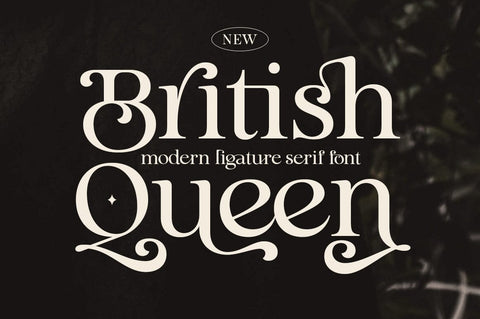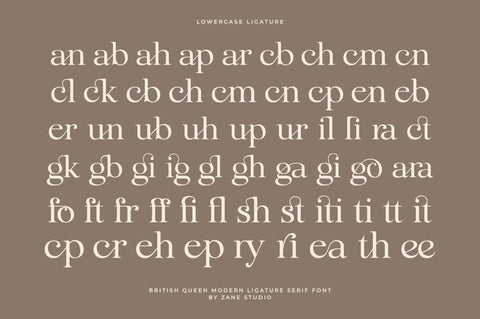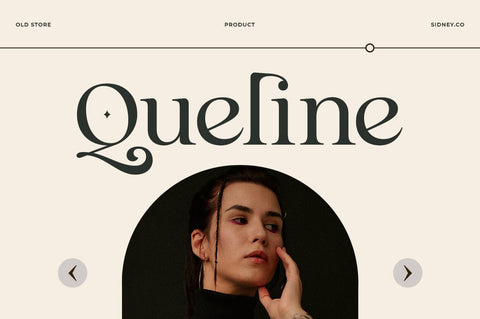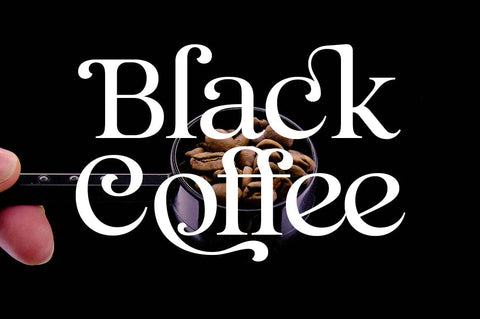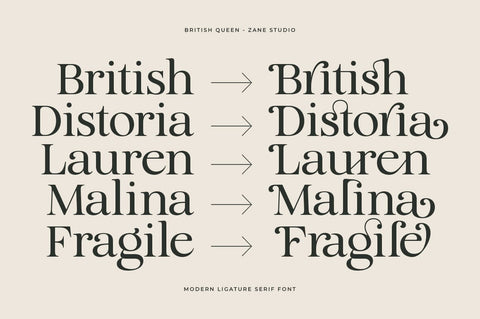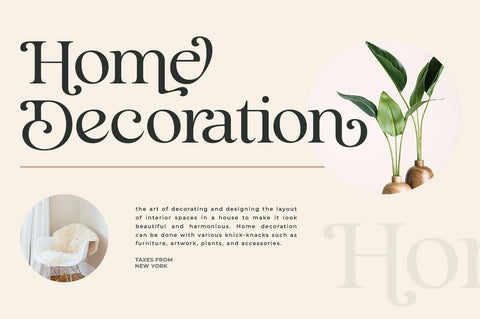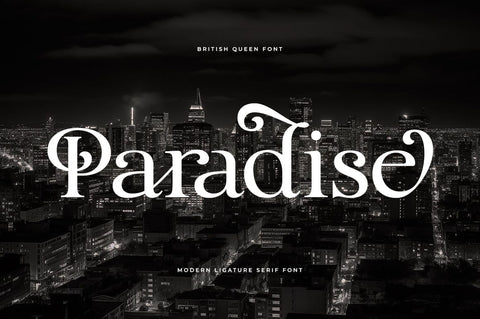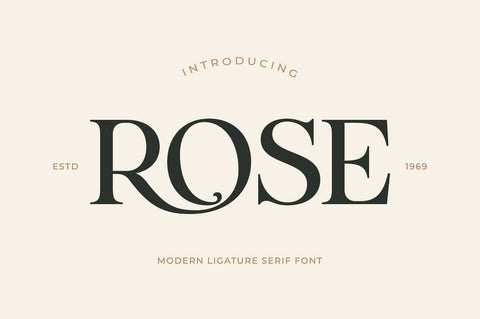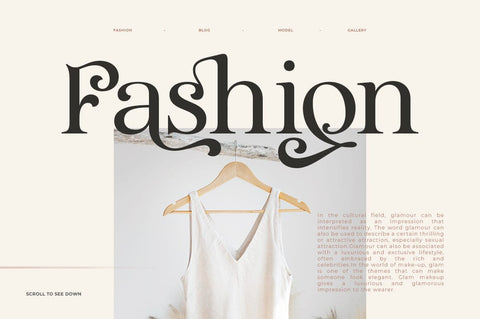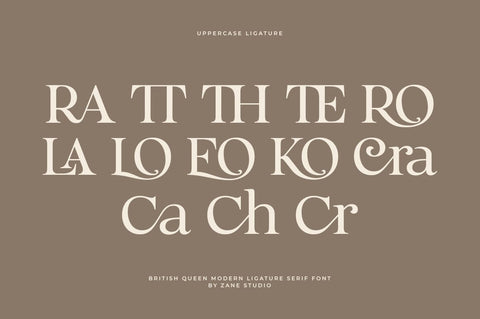
British Queen - Modern Ligature Font
British Queen Classic-Modern Ligature Font!
British Queen is a classic, elegant and unique style font that uses ligatures to seamlessly connect letters. Perfect for branding, logos, invitations, masterheads and more. Hermione has 75 ligatures, 100 alternates for upper and lower case letters as well as numbers and punctuation marks making it very versatile.
British Queen also includes a complete set of: